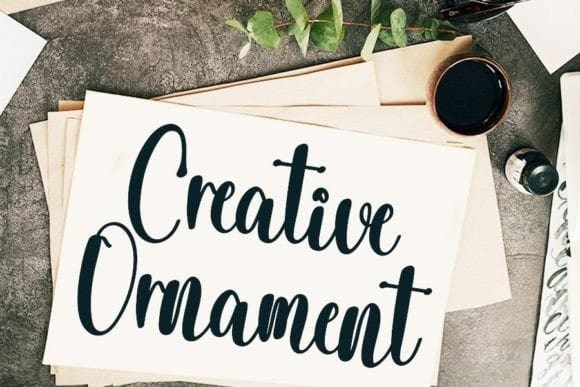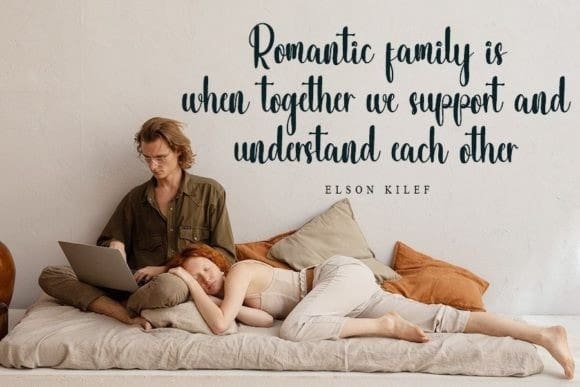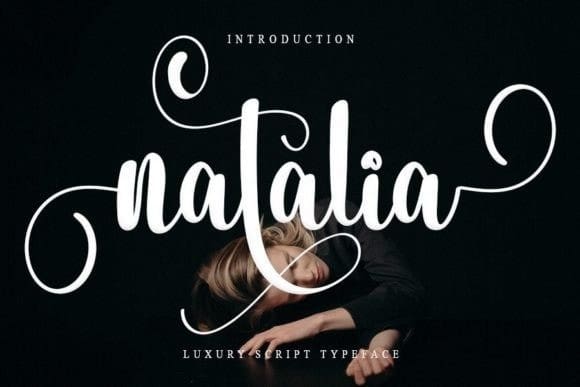
Natalia Luxury Script Font
Natalia Luxury Script Font is a beautiful and refined script font. It has a classy, elegant and modern look that can be used for logos, branding, invitations, stationery, wedding designs, social media posts, and much more!